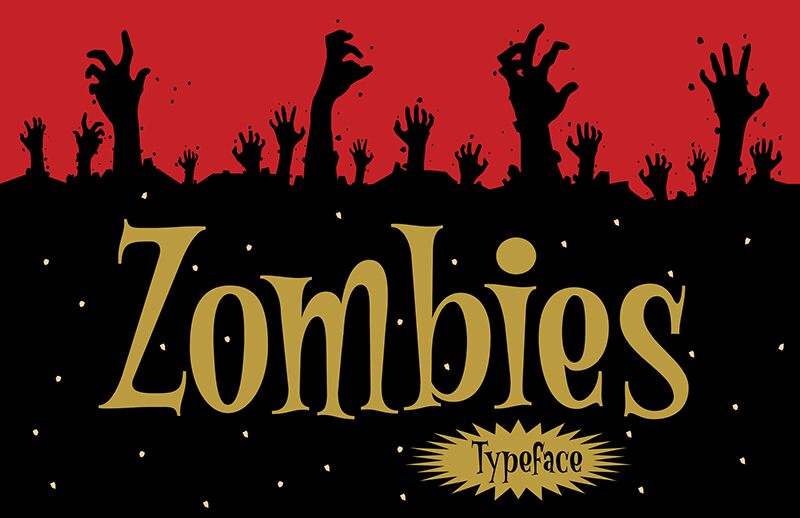
Zombies font by Toko Laris Djaja is a free horror-style typeface whose decorative characters create an eerie, dramatic, and deeply atmospheric presence. The single-style font captures a vintage horror vibe with modern elegance added for a different twist. It is, by all means, a perfect Halloween font!
Other themes and projects that can take advantage of the font include books, graphics, video games, and brands inspired by monsters, spirits, and mythical creatures. Try this decorative Halloween font for posters advertising Halloween parties and concerts.
Integrate it in horror branding projects as well, such as series and movies subtitles, posters, and other visuals. Even social media promotional visuals for Halloween sales, for instance, are a great way to place this font on a “T” with a spooky design.